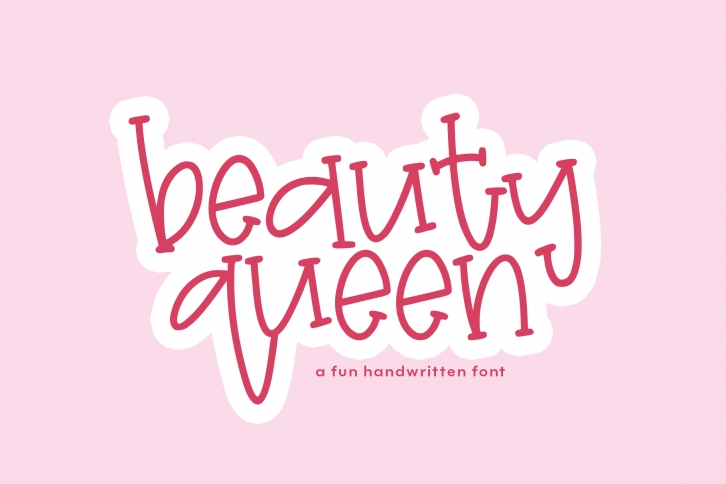
Beauty Queen is a beautiful font that was designed by KA Designs. It's a great choice for designers and creatives who need such a font. It was released on February 13, 2020 and the file size is 16.46 MB. Beauty Queen may give a more youthful, expressive and casual look to your project. It is a very beautiful, refined, elegant, and high-quality font.